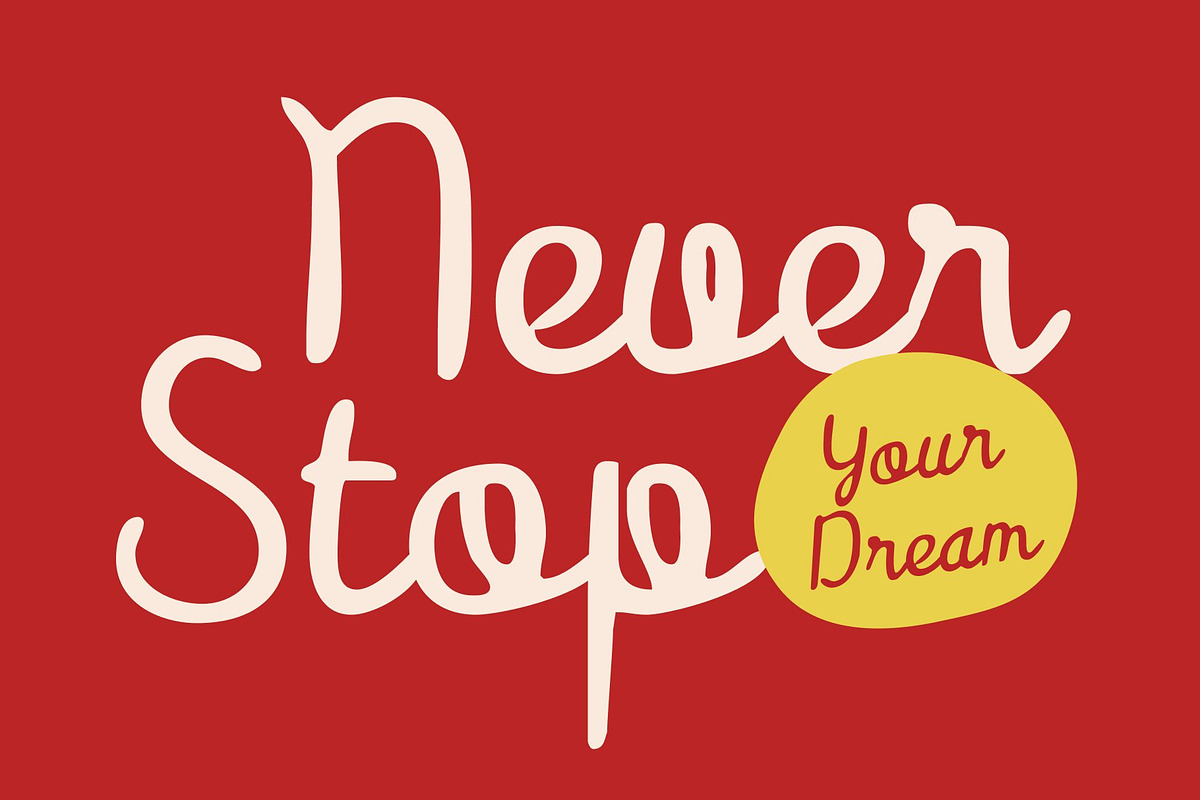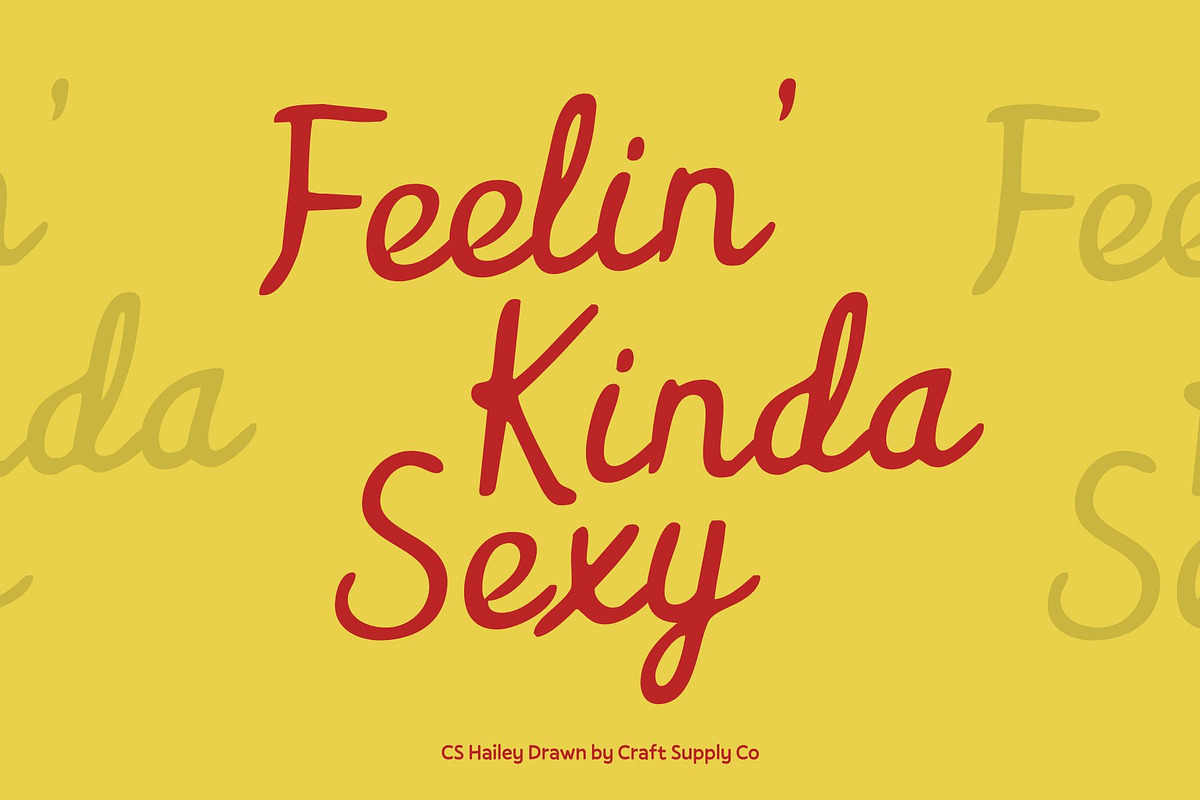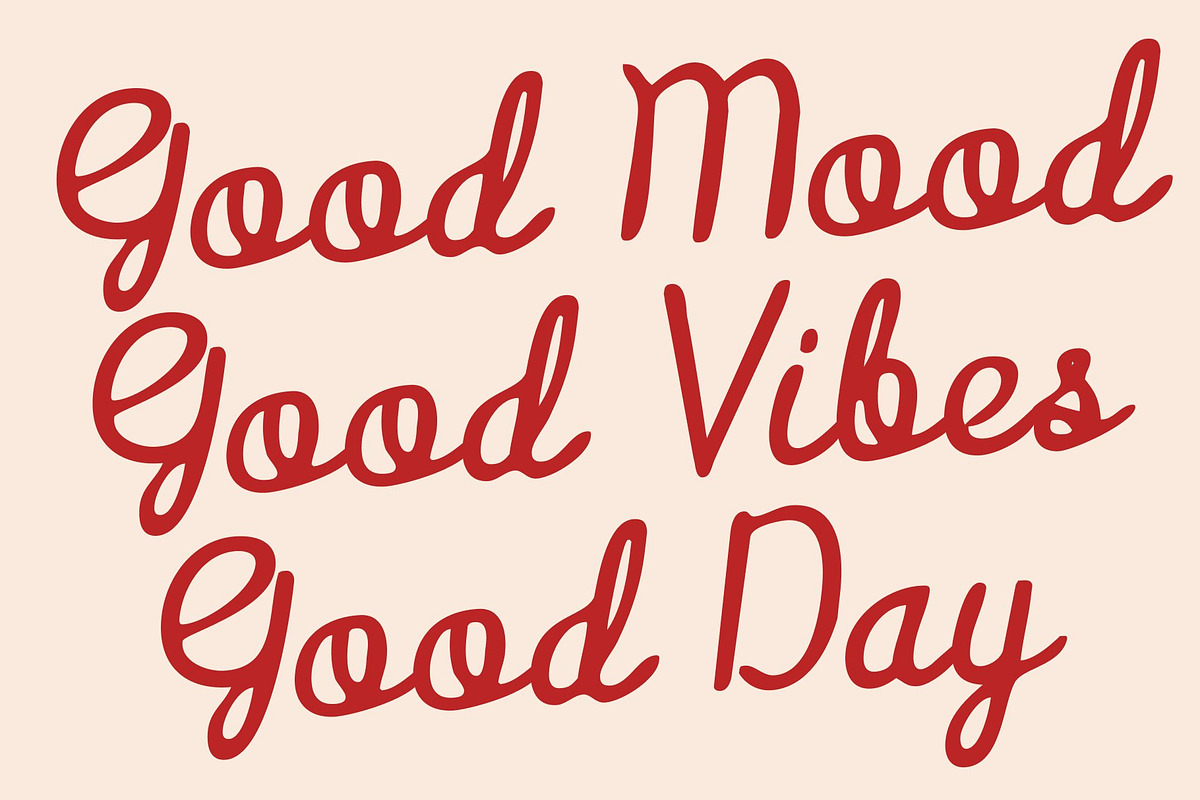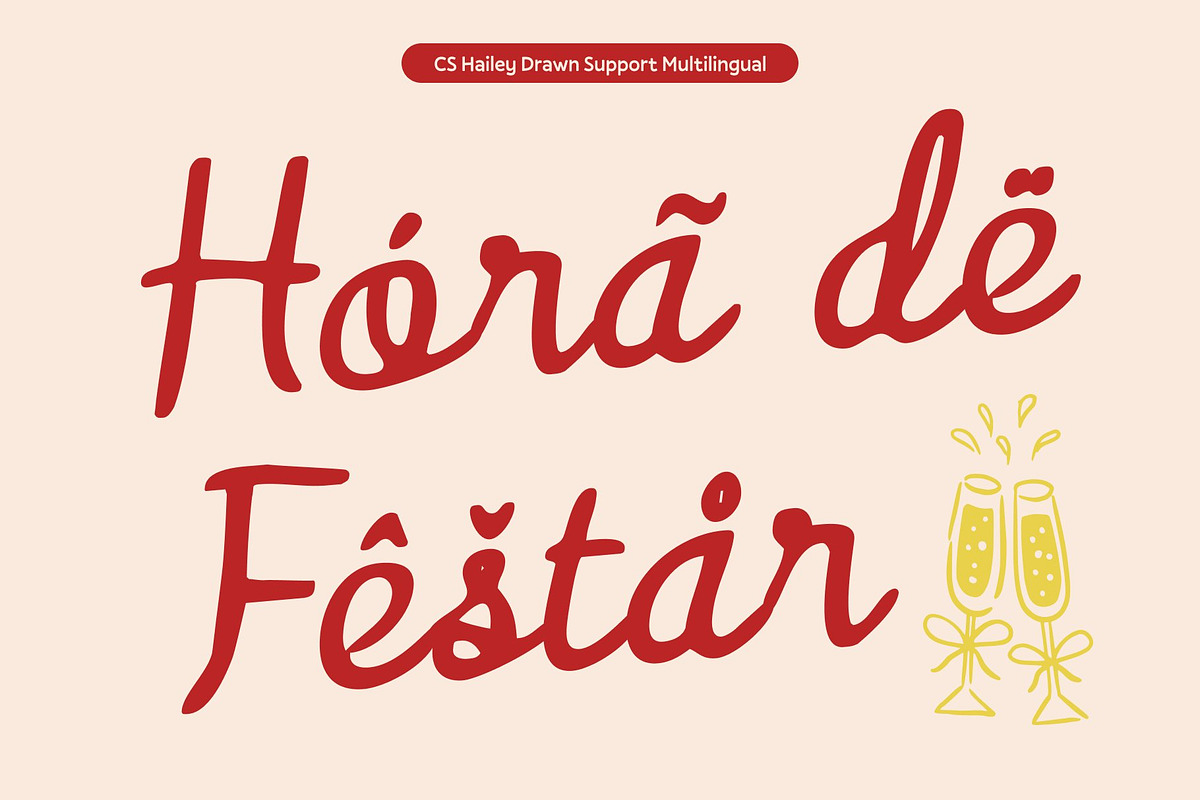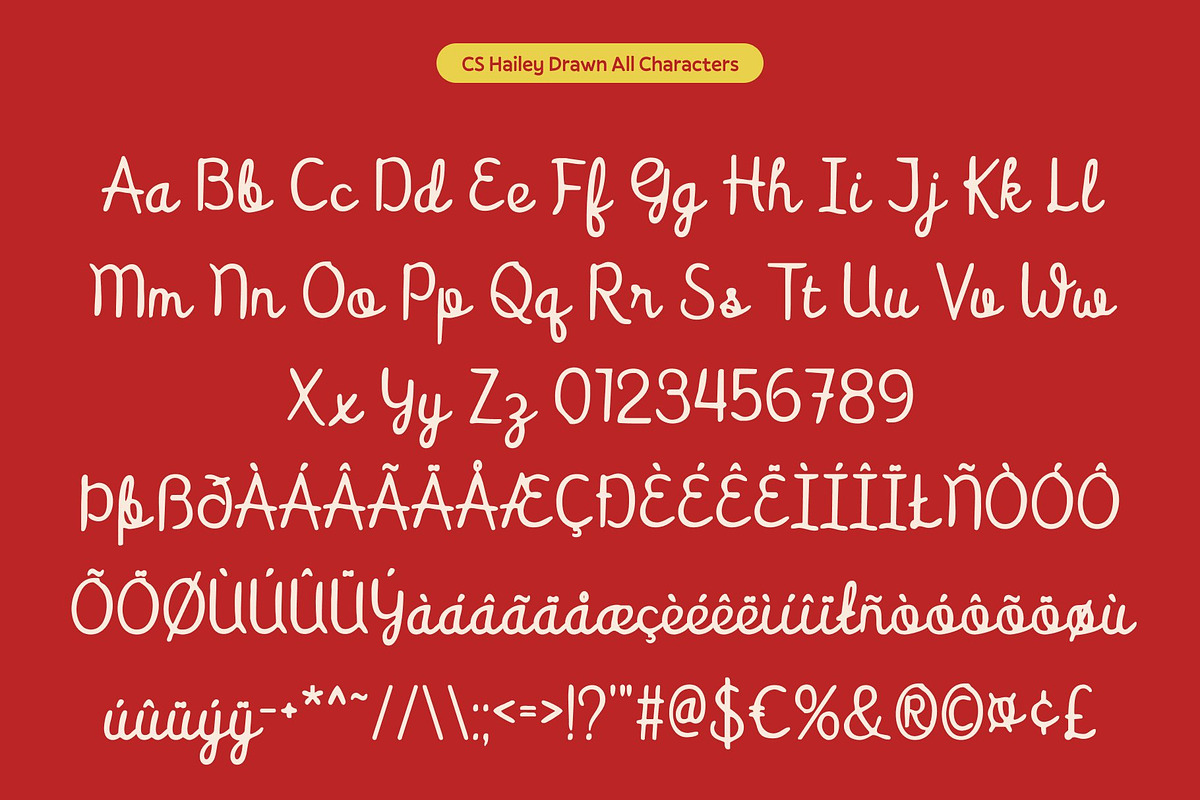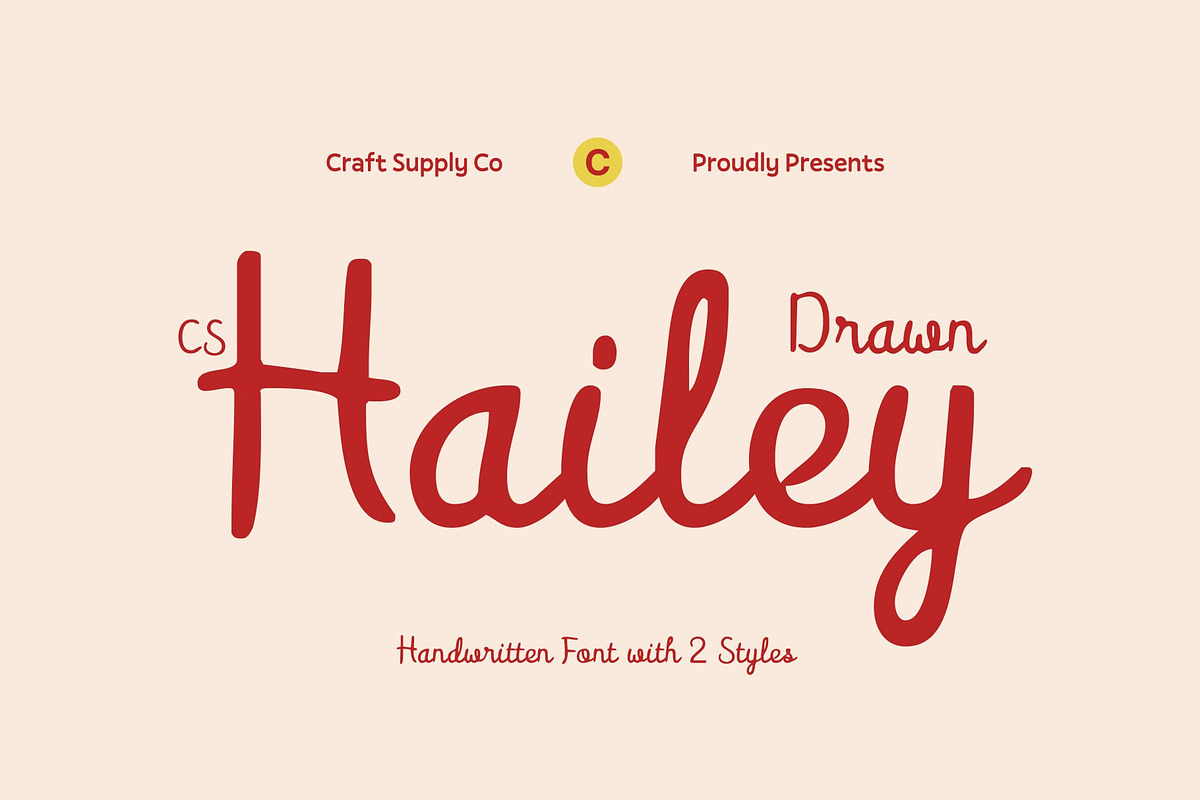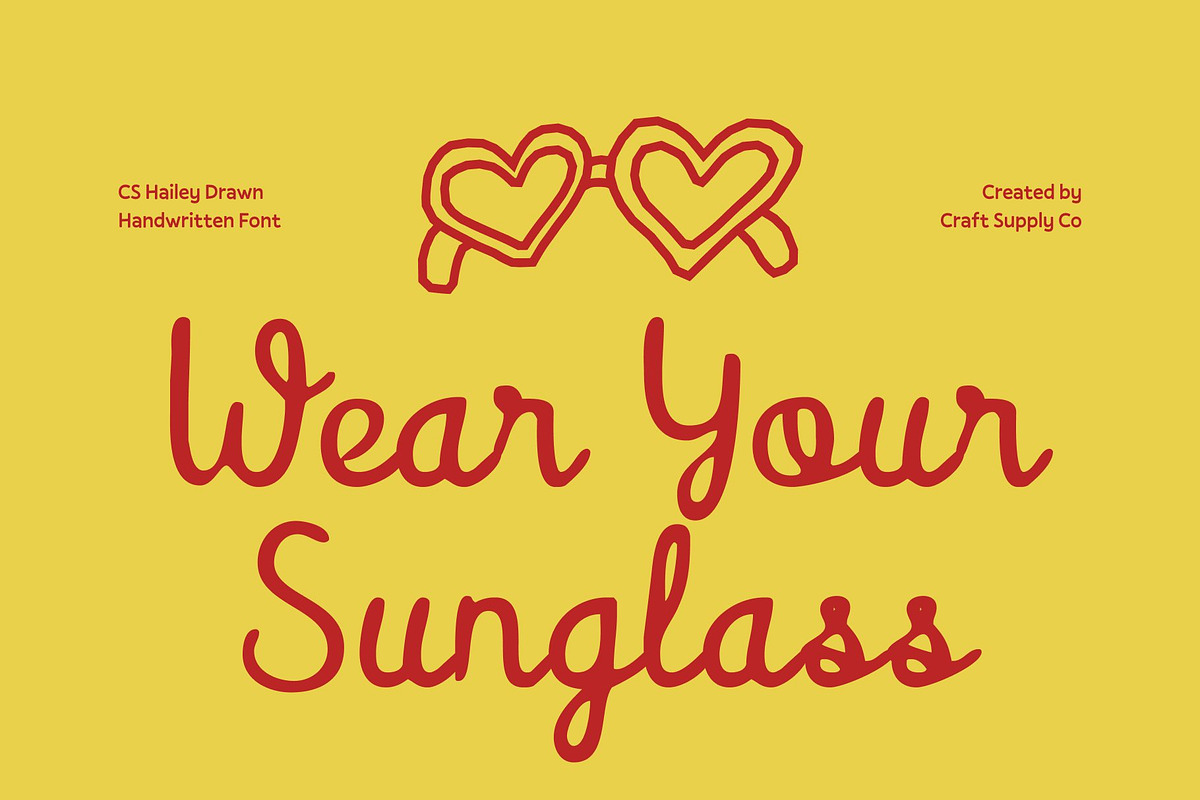
CS Hailey Drawn
CS Hailey Drawn – Script Font: Elegance with a Modern Flow
Smooth Curves with Timeless Grace This is a modern script font that captures the beauty of flowing cursive with a fresh, contemporary spirit. Its smooth, sweeping letterforms feel graceful and inviting, while the drawn effect introduces subtle handcrafted nuances that add warmth and personality. The result is a script style that feels elegant, expressive, and naturally refined.
Balanced Between Classic and Modern Carefully designed with balanced proportions, this font blends the charm of classic handwriting with the clarity of modern typography. Each stroke flows effortlessly while maintaining excellent legibility, allowing the font to feel sophisticated without becoming overly decorative or difficult to read.
Perfect for Premium and Feminine Branding With its soft curves and refined rhythm, this font is ideal for wedding invitations, boutique logos, luxury product packaging, and upscale event stationery. Its feminine touch communicates professionalism, elegance, and exclusivity, while the drawn texture keeps the design feeling personal and approachable.
Versatile for Elegant Applications From high-end editorial layouts to personal stationery and social media graphics, this font adapts beautifully across creative applications. Whether used as a focal headline or a supporting accent, it delivers timeless elegance, modern flow, and handcrafted charm that elevate any design.